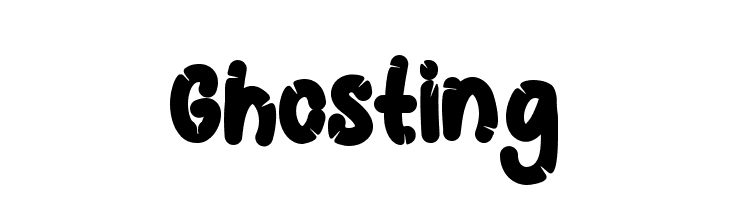
A bold, playful font with Halloween-themed elements and rounded characters.
A bold, playful font with thick, rounded strokes and a lively appearance.
A dynamic, hand-drawn font with bold, varied strokes and a playful edge.